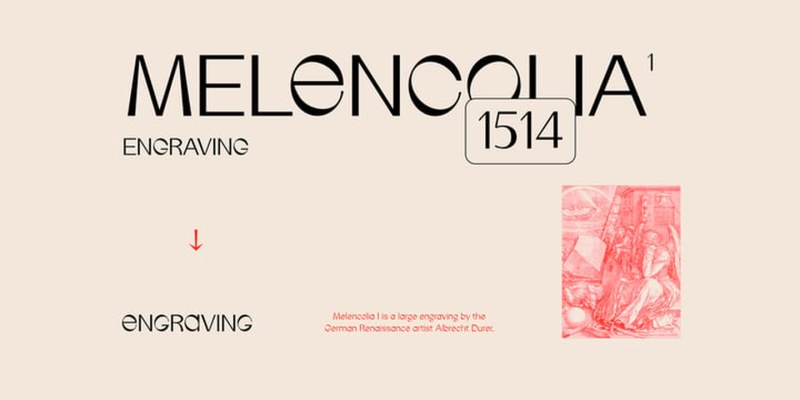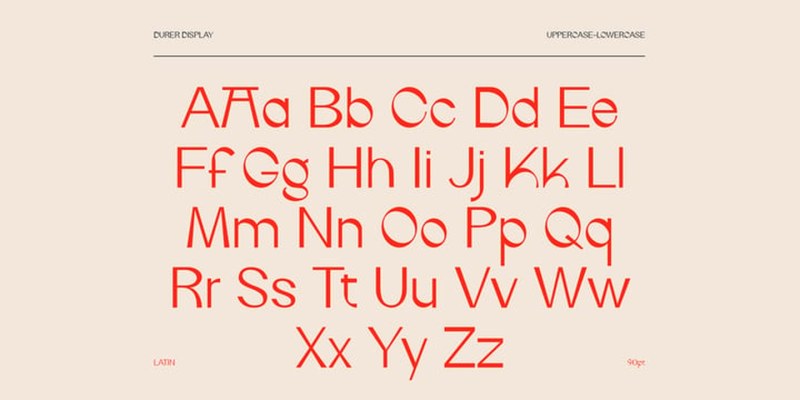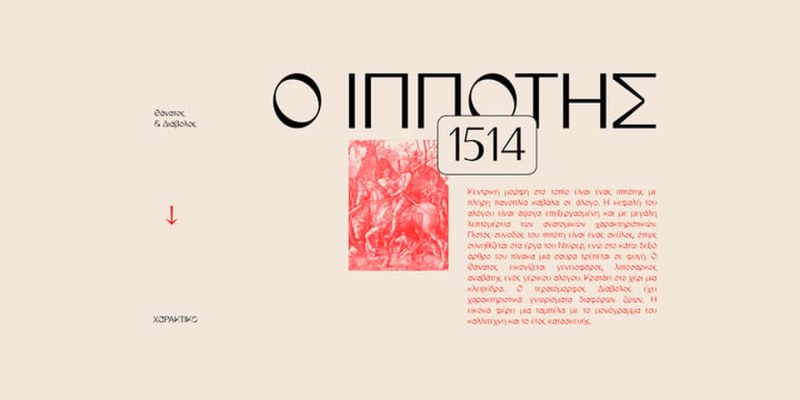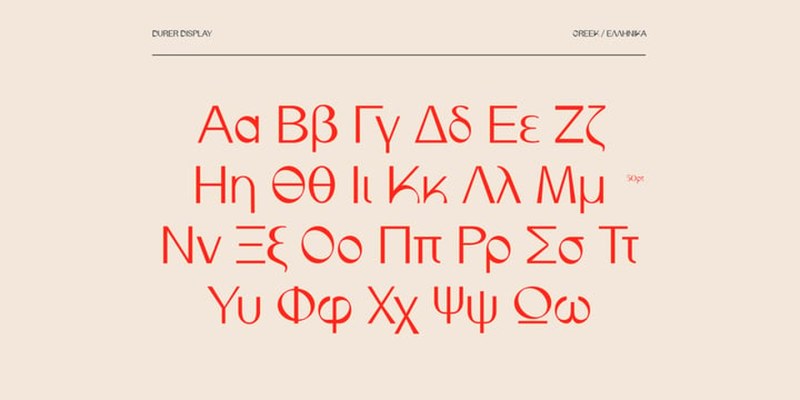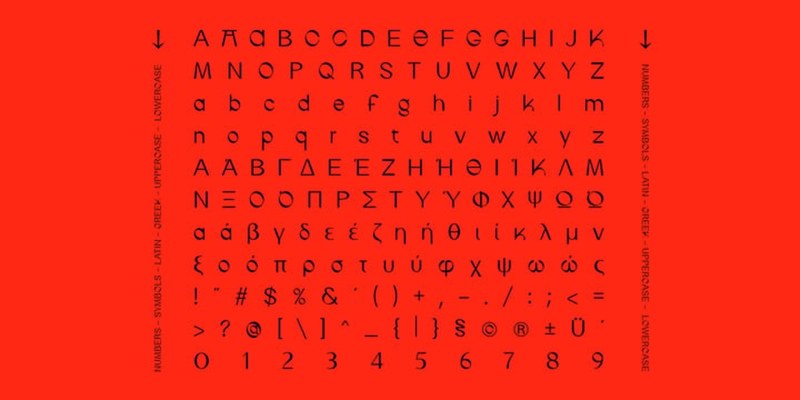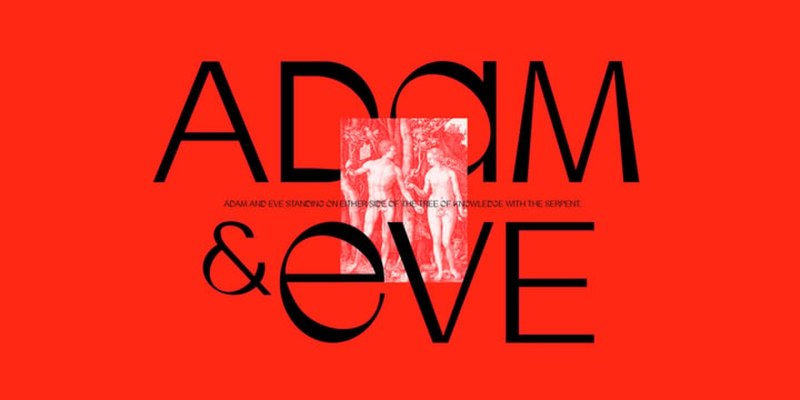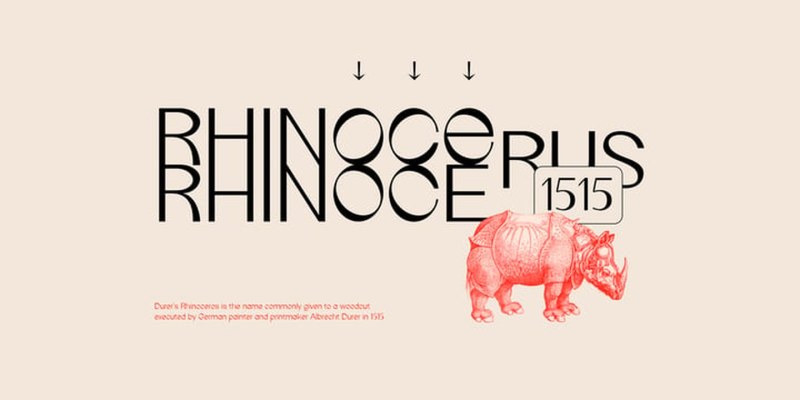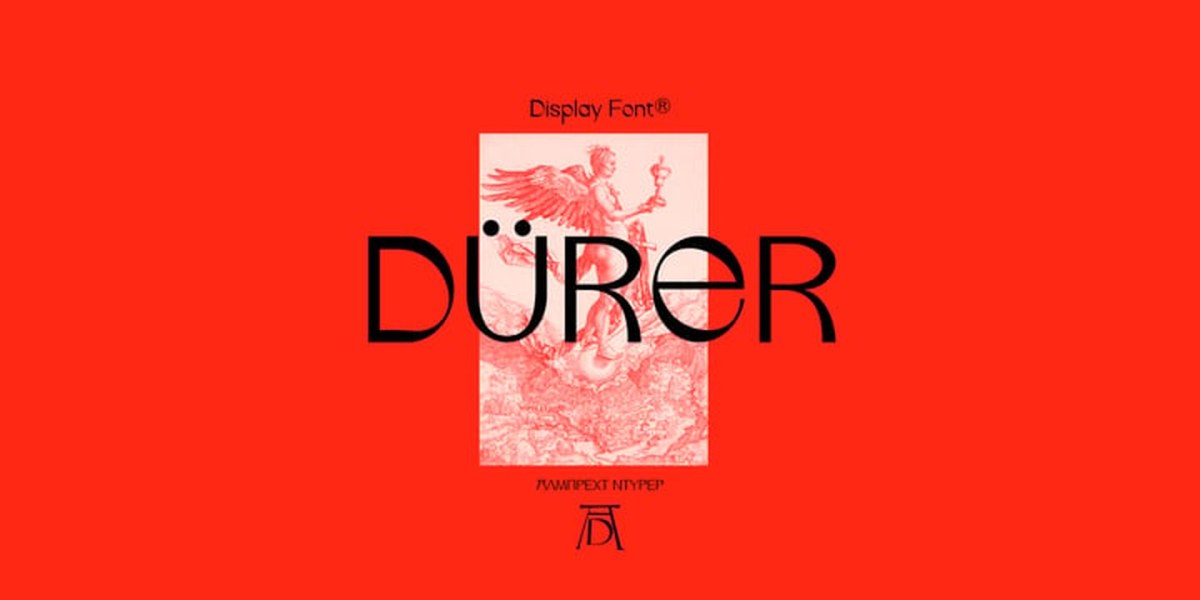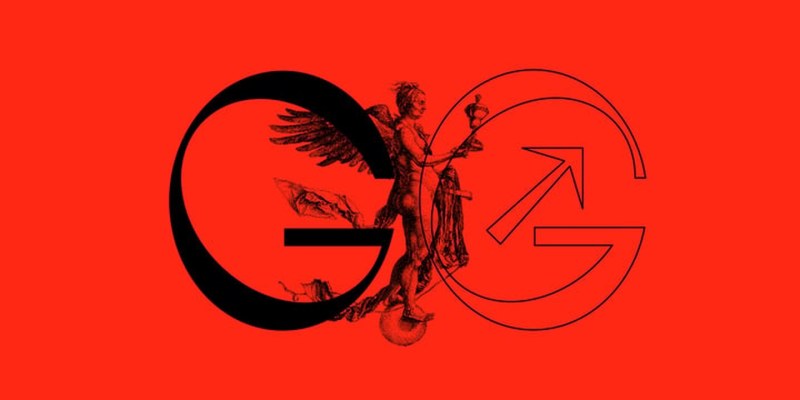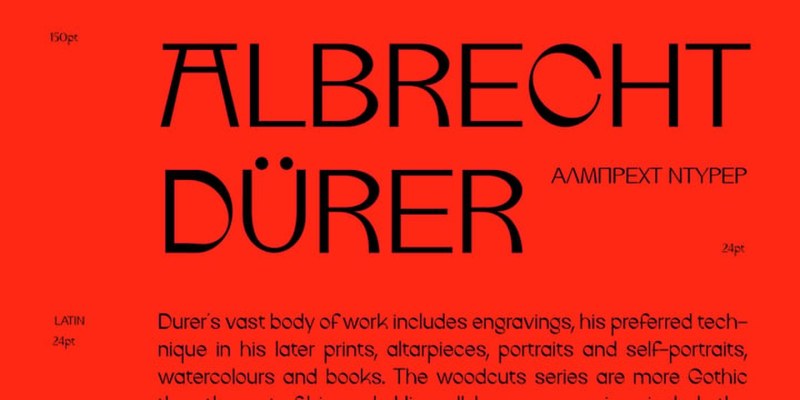
IF Durer Display Font
Durer is a modern font, its soft curves and refined details create a sense of elegance. Inspired by the work of Albrecht Dürer (21 May 1471 – 6 April 1528), who was a German painter, printmaker, and theorist of the German Renaissance. Born in Nuremberg, Dürer established his reputation and influence across Europe in his twenties due to his high-quality woodcut prints.